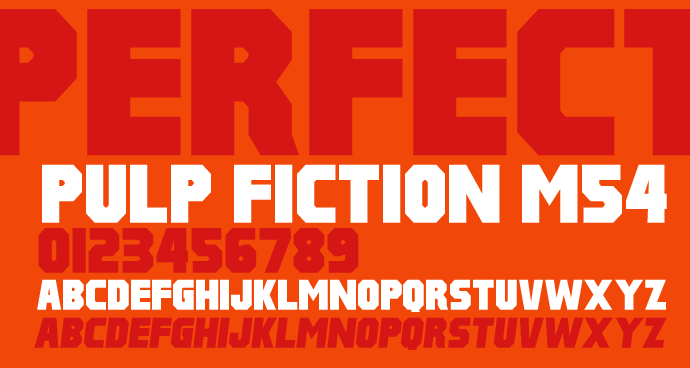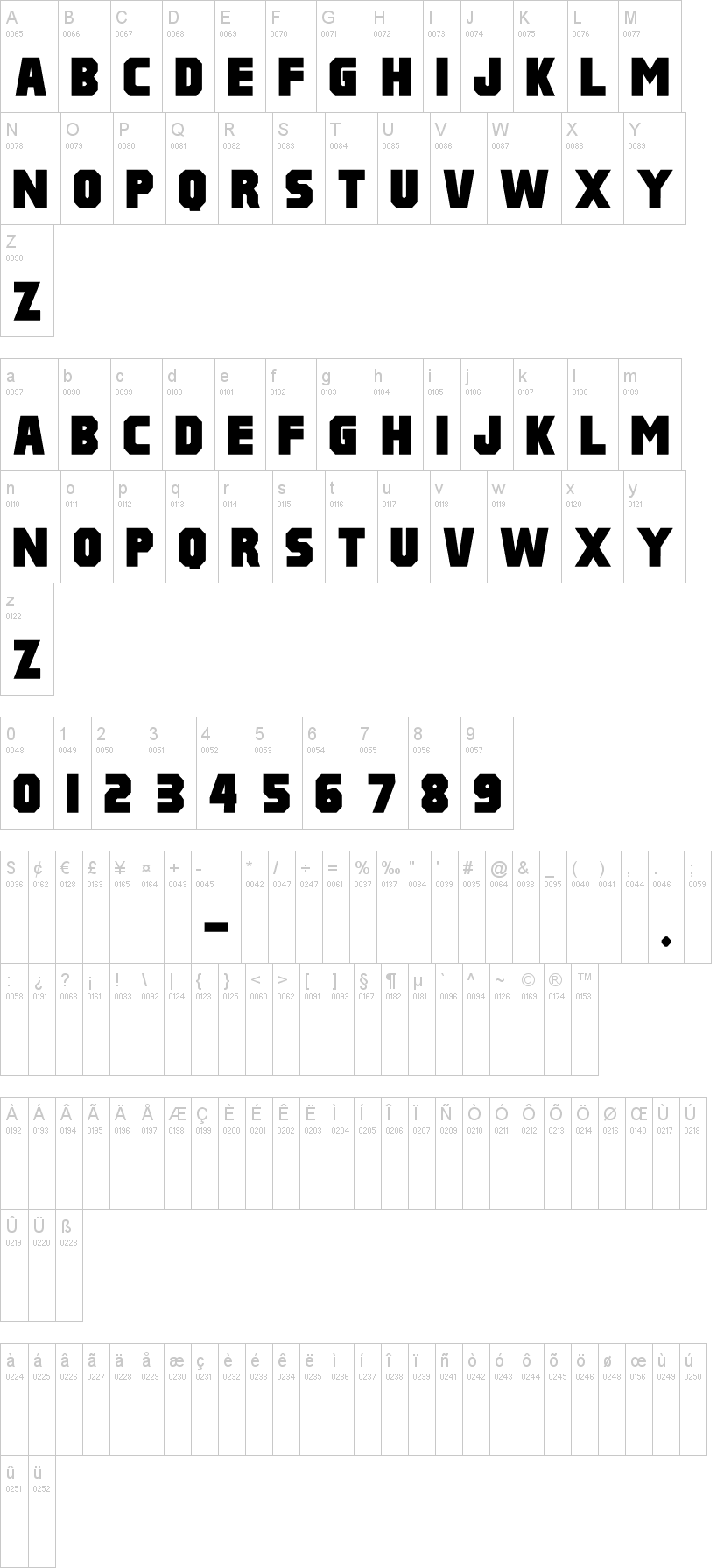
Pulp Fiction Italic M54.ttfNote of the authorA chunky sharp edged typeface, reminiscent of collegiate style typefaces. Ideal for headlining and signage.